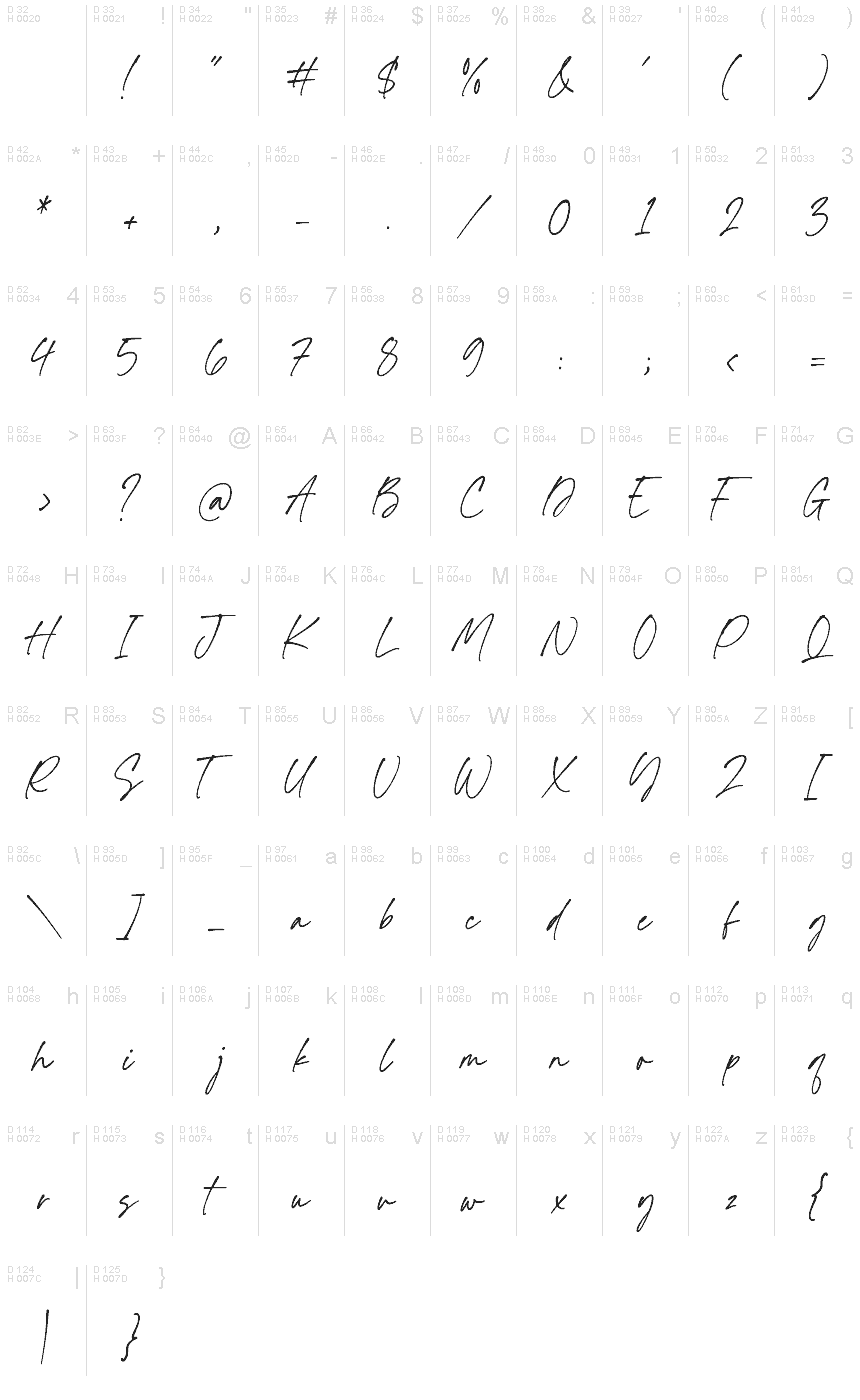
Ambrosia Daughter
Ambrosia Daughter font by Timur Type radiates modern flavor with a signature-style of uniquely execution handwritten text. Letters are connected, casually elegant, and extremely stylish. Ambrosia Daughter is a light font that beautifully flows within its sentences structure and word. Keywords to best describe it are mostly cursive handwriting font terms.
Take advantage of Ambrosia Daugher as your new calligraphy for personal branding logos & signatures, business cards, brand advertising/identity design, magazine covers/titles editorials/publishings, product labels packaging & design, product displays or body text on any kind of new media platforms.